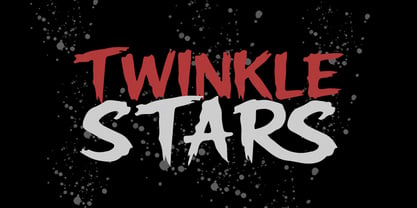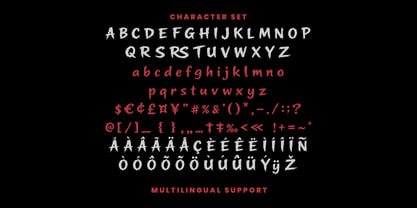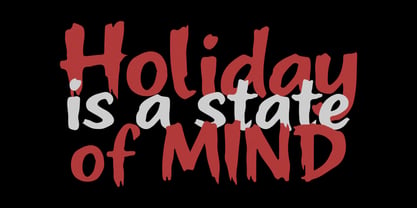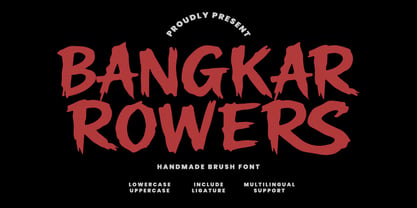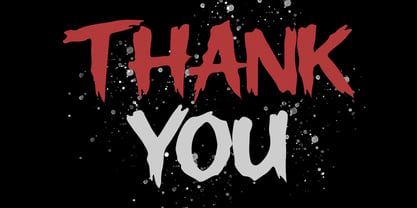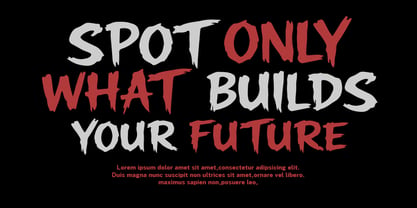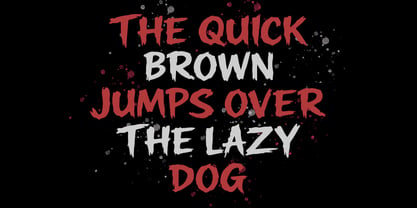
Bangkar Rowers
by Maulana Creative
The Bangkar Rowers Font Family was designed by Gilang Maulana and published by Maulana Creative. Bangkar Rowers contains 1 styles. More about this family
Bangkar Rowers is a bold handmade brush font designed to make a striking visual impact in modern design projects. Featuring rugged, textured stroke details and organic letterforms, this typeface brings an energetic, raw, and expressive aesthetic to any artwork. It includes uppercase and lowercase glyphs, contextual ligatures, and comprehensive multilingual support to elevate various creative concepts seamlessly.
Ideal for branding, movie posters, music album covers, event banners, gaming graphics, and social media promotions, Bangkar Rowers delivers strong visual presence. Its dramatic brush edges provide an edgy yet versatile look suitable for Halloween themes, action sports, editorial headlines, and prominent logo designs.
Designers: Gilang Maulana
Foundry: Maulana Creative